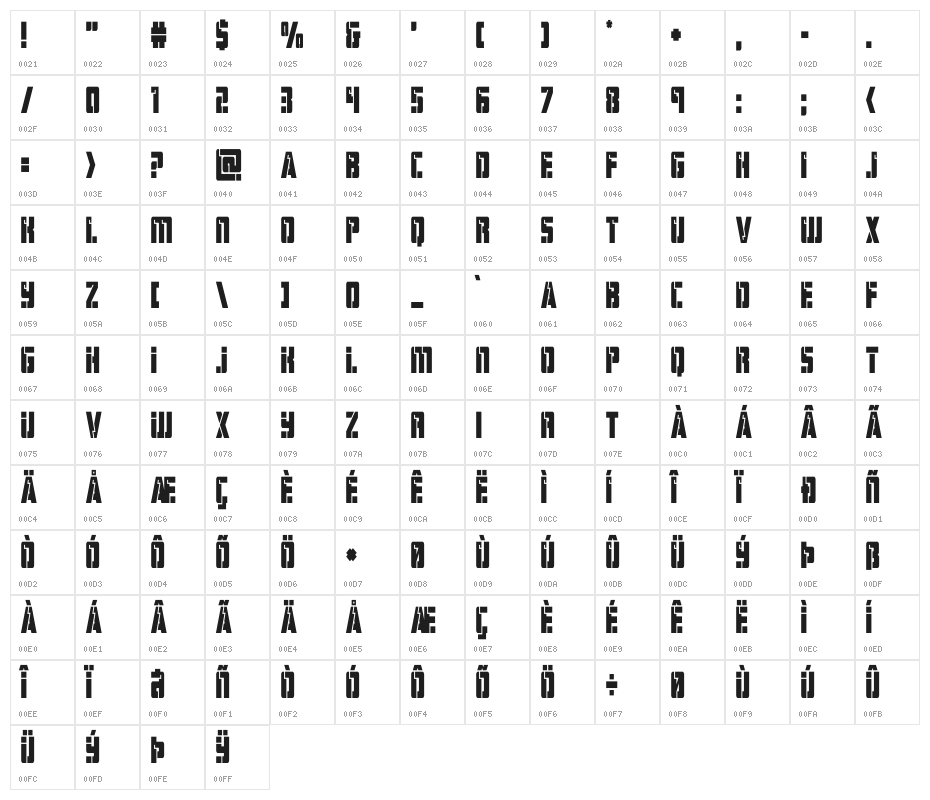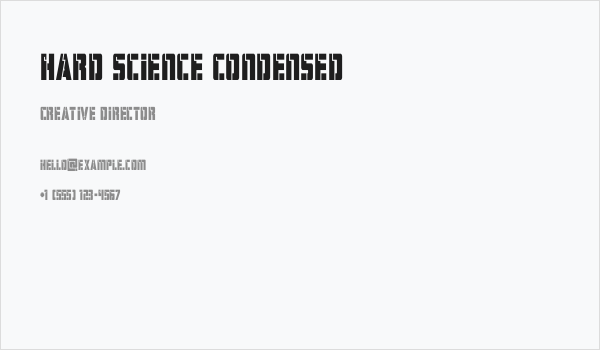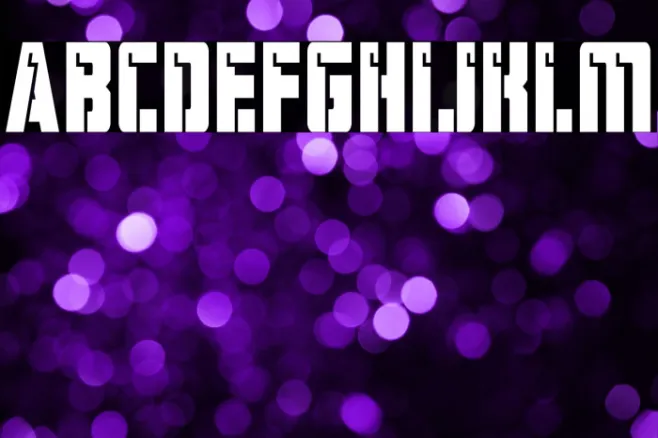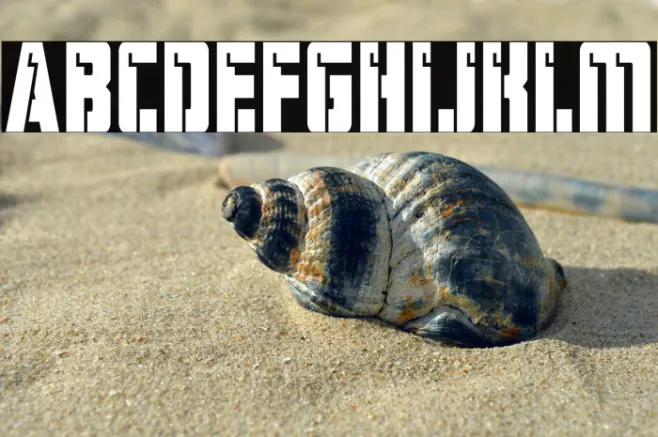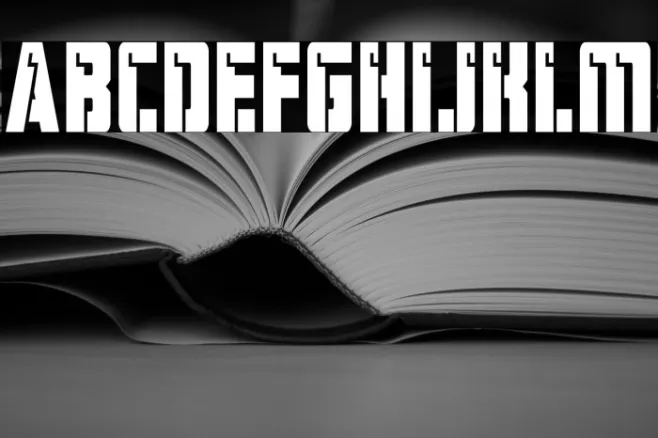
Hard Science Condensed Font
Hard Science Condensed Description
This font features a bold and condensed style with a strong geometric influence. The characters are blocky and angular, giving it a futuristic and industrial feel. The uppercase and lowercase letters maintain a consistent height, while the numbers and special characters are designed to match the overall aesthetic. The font's sharp edges and solid forms make it highly legible and impactful, suitable for attention-grabbing designs. Its condensed nature allows for efficient use of space, making it ideal for headlines and titles where space is limited.
| Proposed Projects | Ideal for use in sci-fi themed posters, industrial design projects, video game graphics, and bold branding materials. |